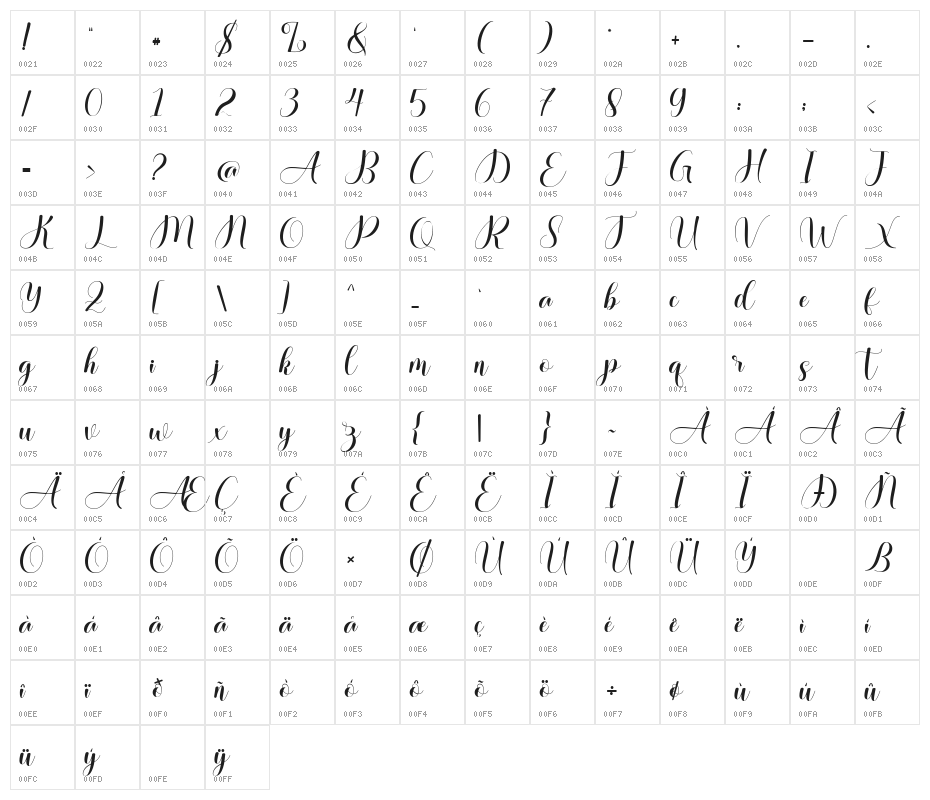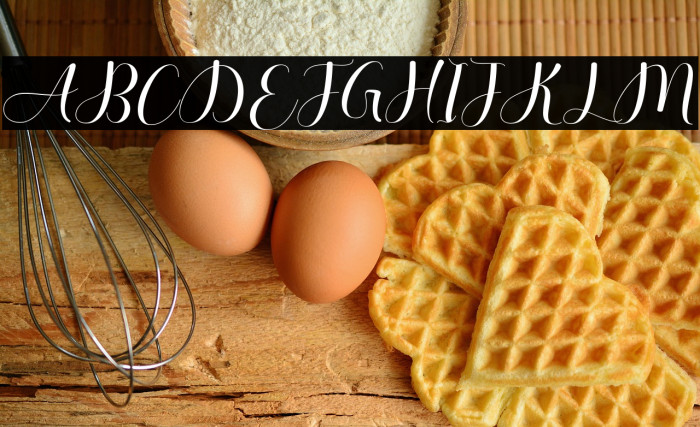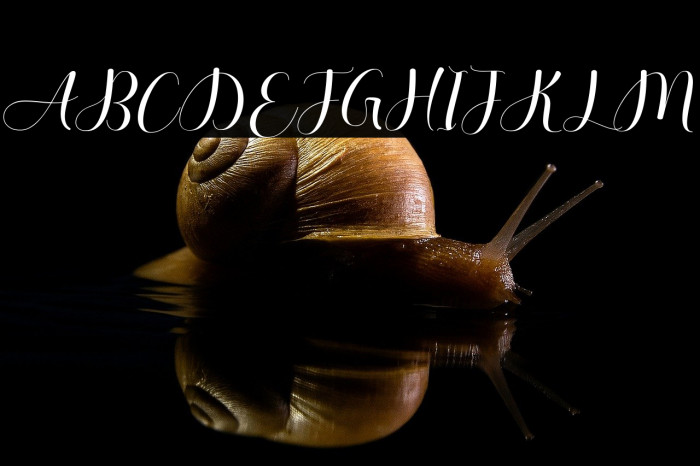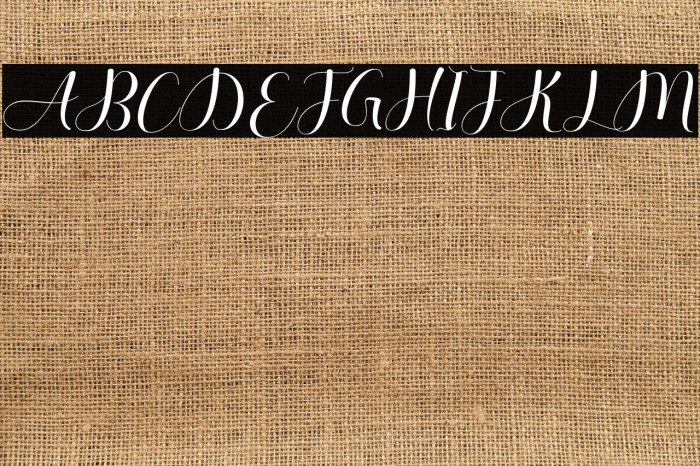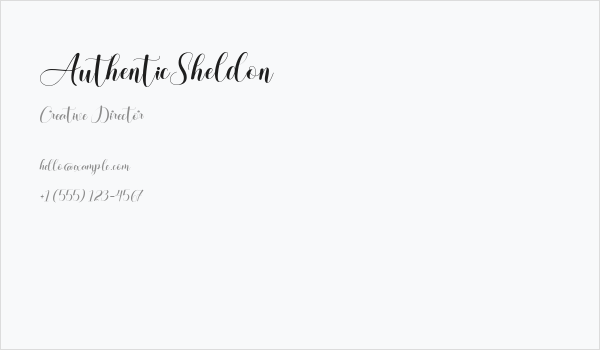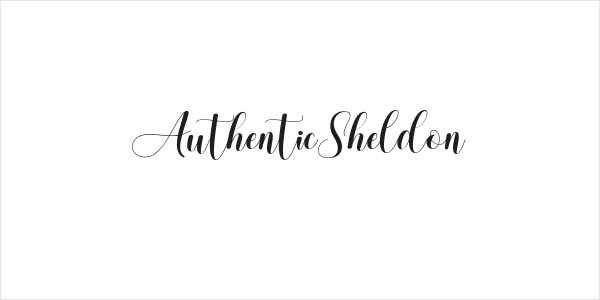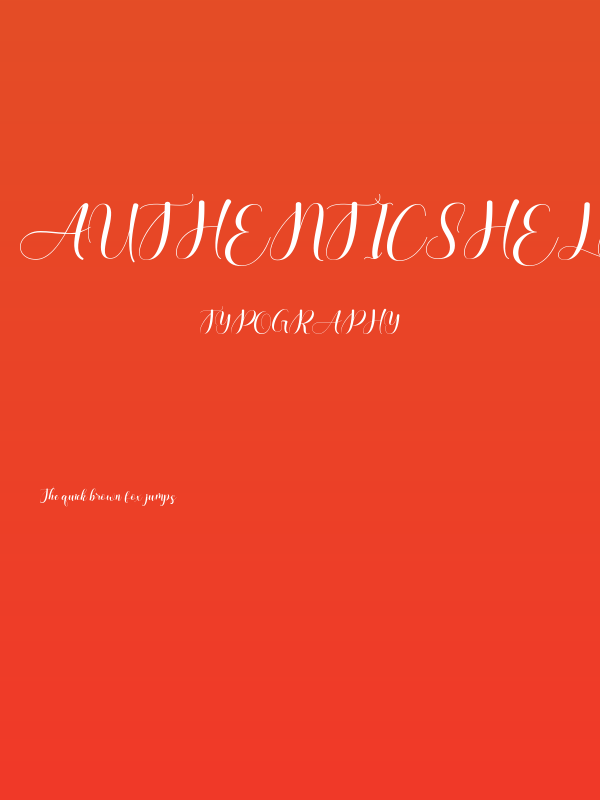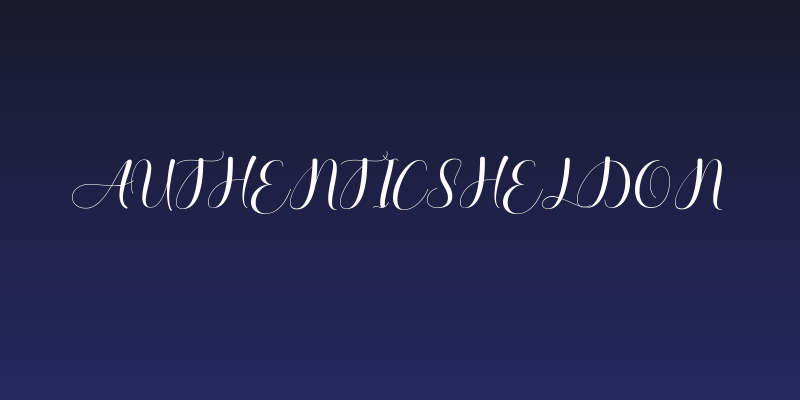
AuthenticSheldon Font
AuthenticSheldon Description
This elegant script font features flowing, interconnected letters with a graceful, handwritten style. The uppercase letters are characterized by sweeping curves and flourishes, giving them a sophisticated and ornate appearance. The lowercase letters maintain a consistent flow, with some characters extending below the baseline, adding to the font's dynamic nature. The numerals are stylish and maintain the same fluidity as the letters, ensuring a cohesive look across all characters. Special characters are designed with similar attention to detail, enhancing the overall aesthetic. This font is perfect for projects that require a touch of elegance and sophistication.